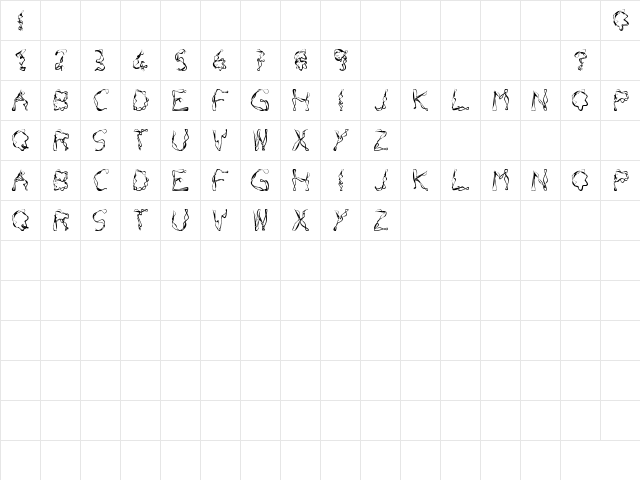
TERRIFIC Regular
| Foundry | Claude Soulayrac |
| Designer | Claude Soulayrac |
Design Context for TERRIFIC Typeface
TERRIFIC is a composed and adaptable typeface that performs quietly and consistently across a wide range of design contexts.